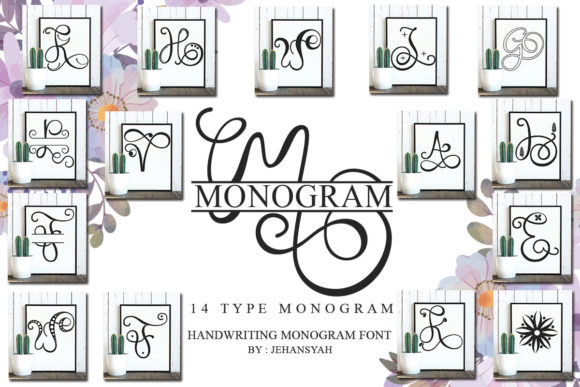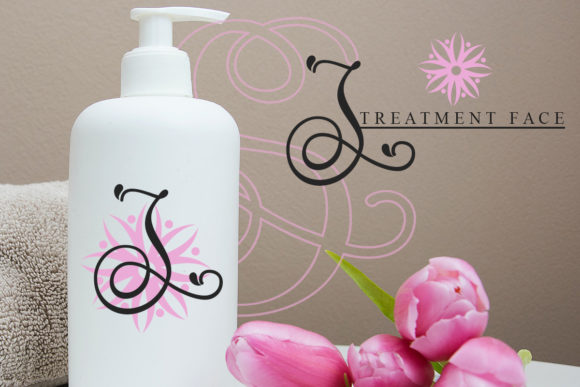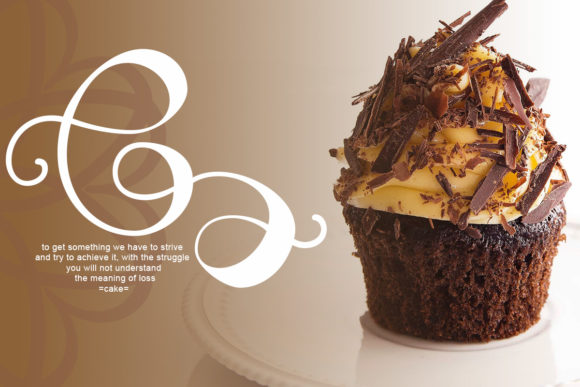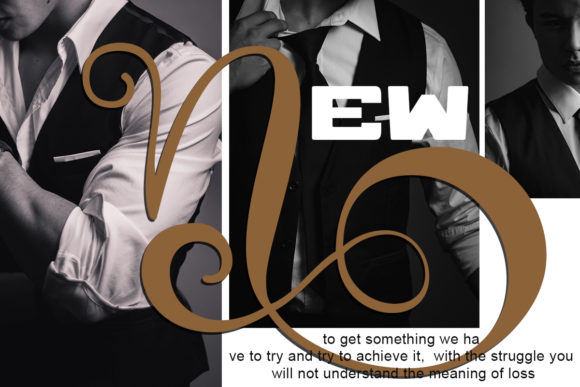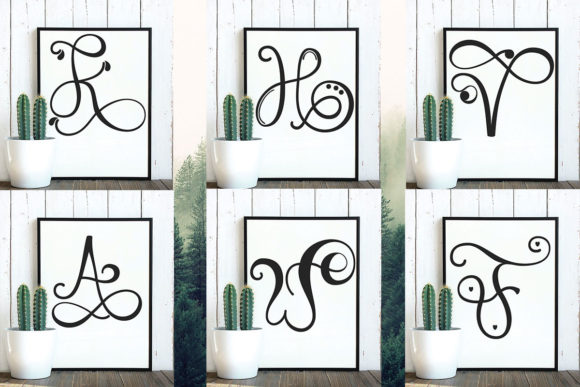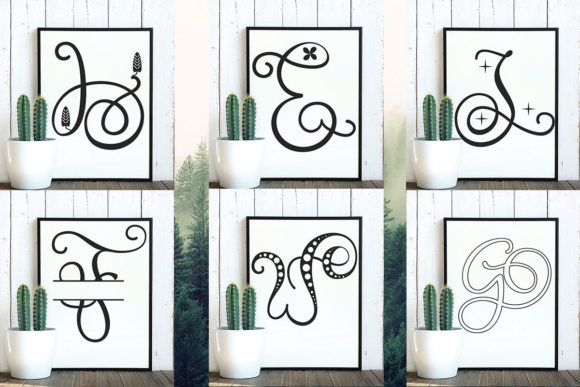
Monogram Font
About Monogram Font
Monogram is an enchanting handwritten font. This versatile script font has a wide spectrum of applications ranging from greeting cards to headlines and is guaranteed to add a romantic feel to your next project.This font comes in over 14 different monogram styles, so that you can get creative with your projects.